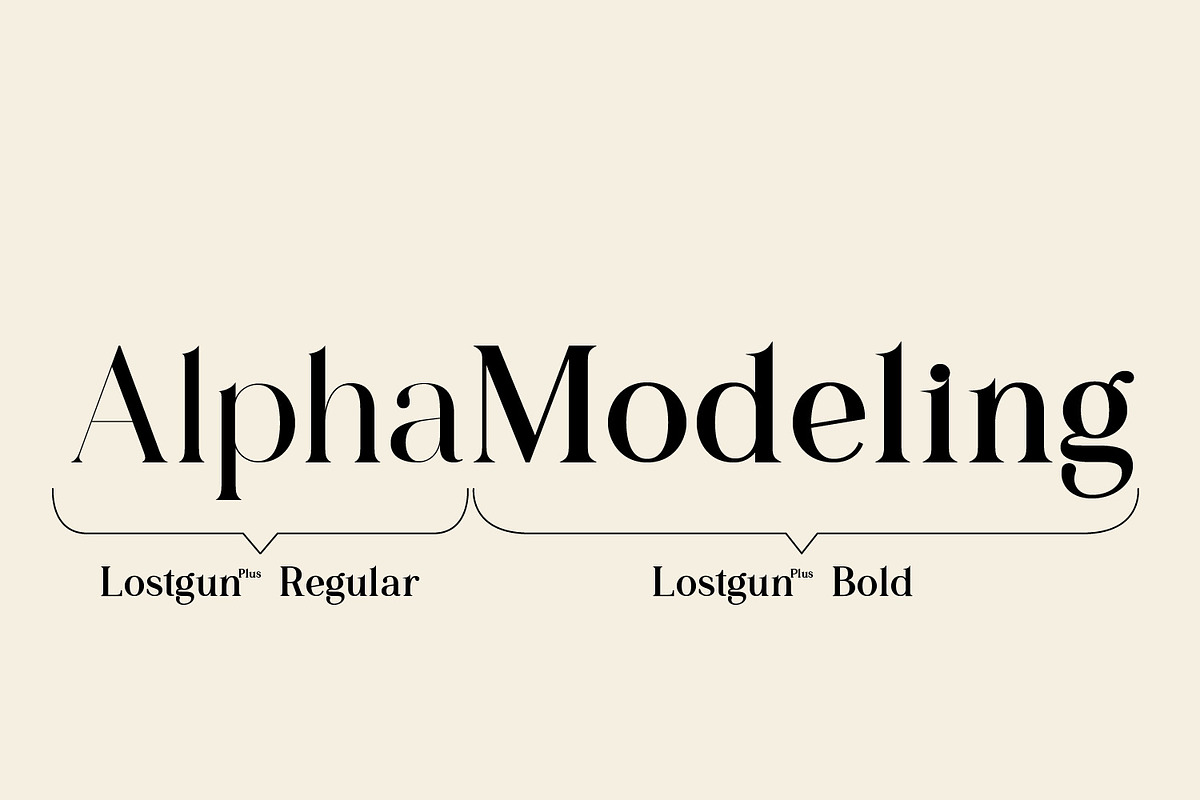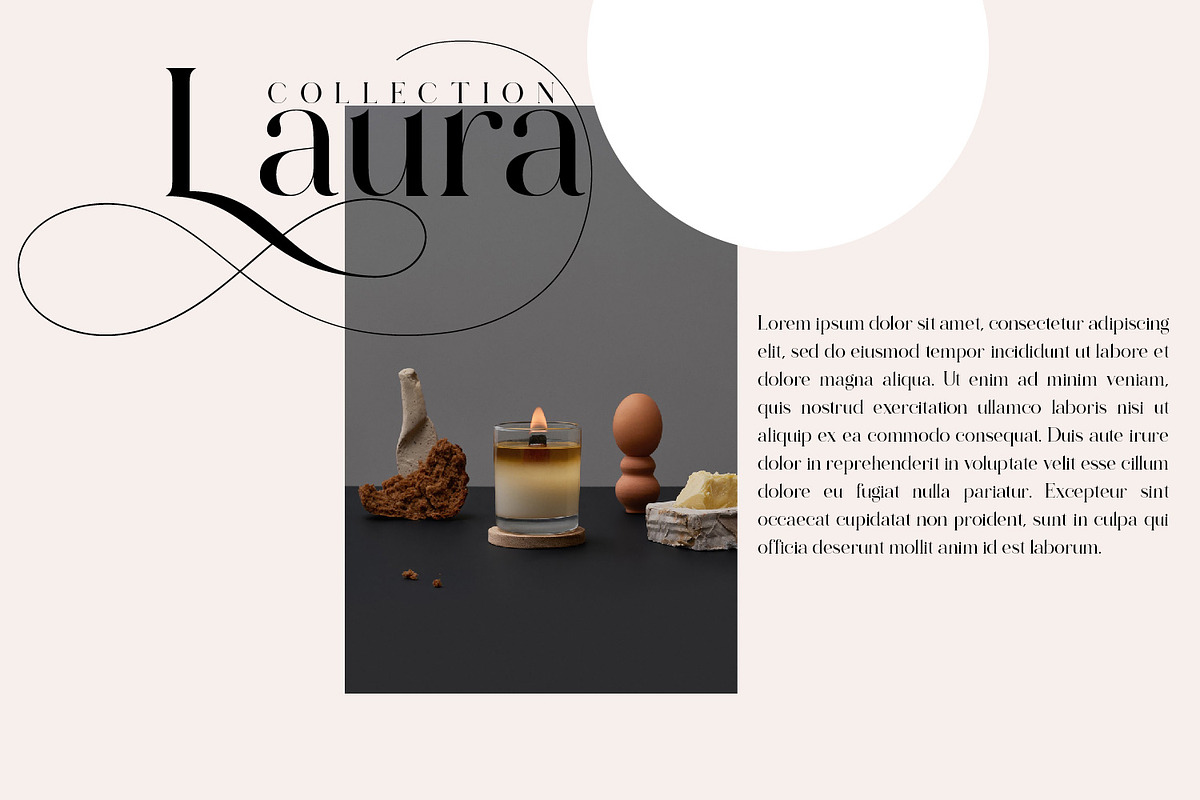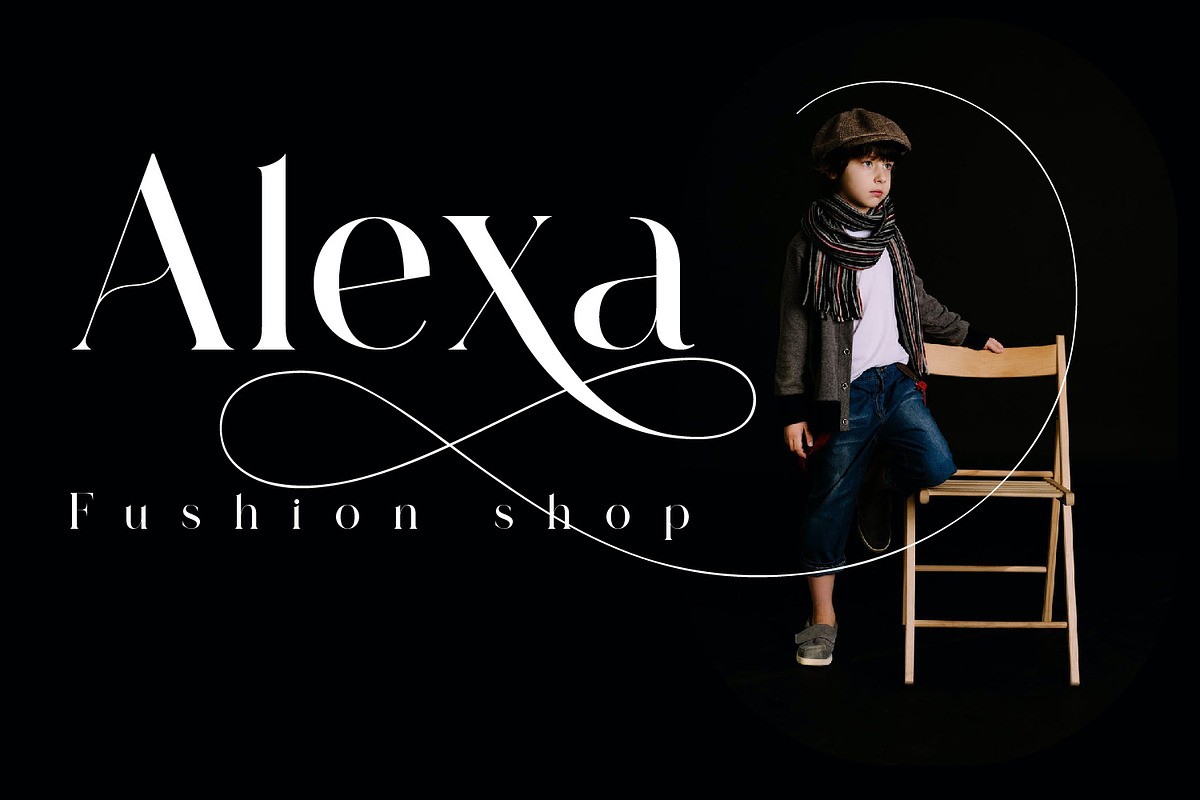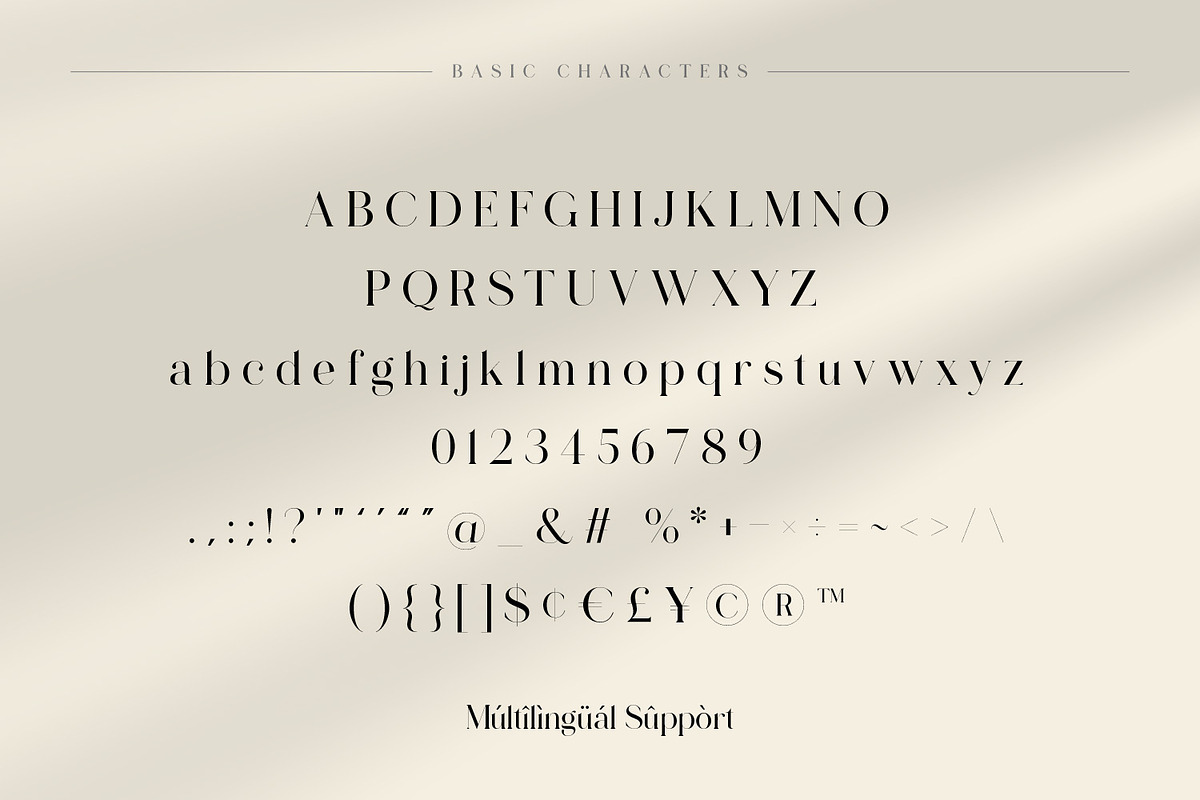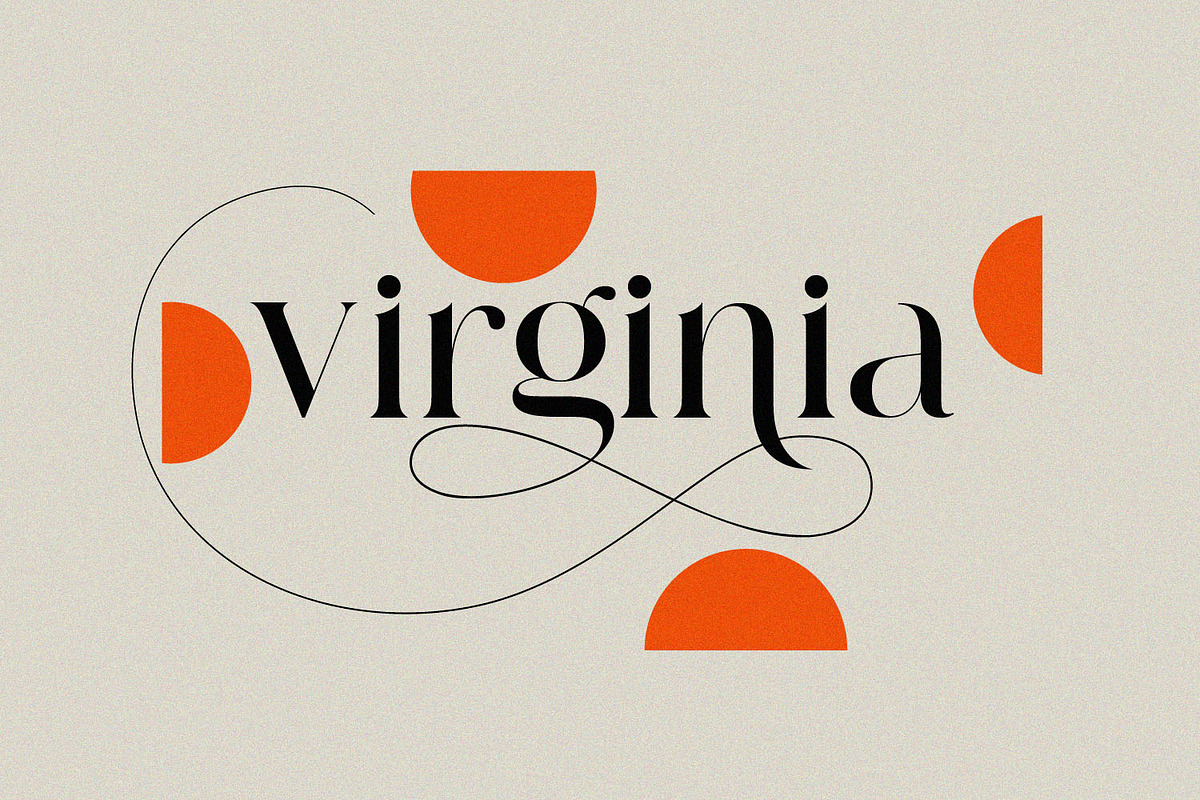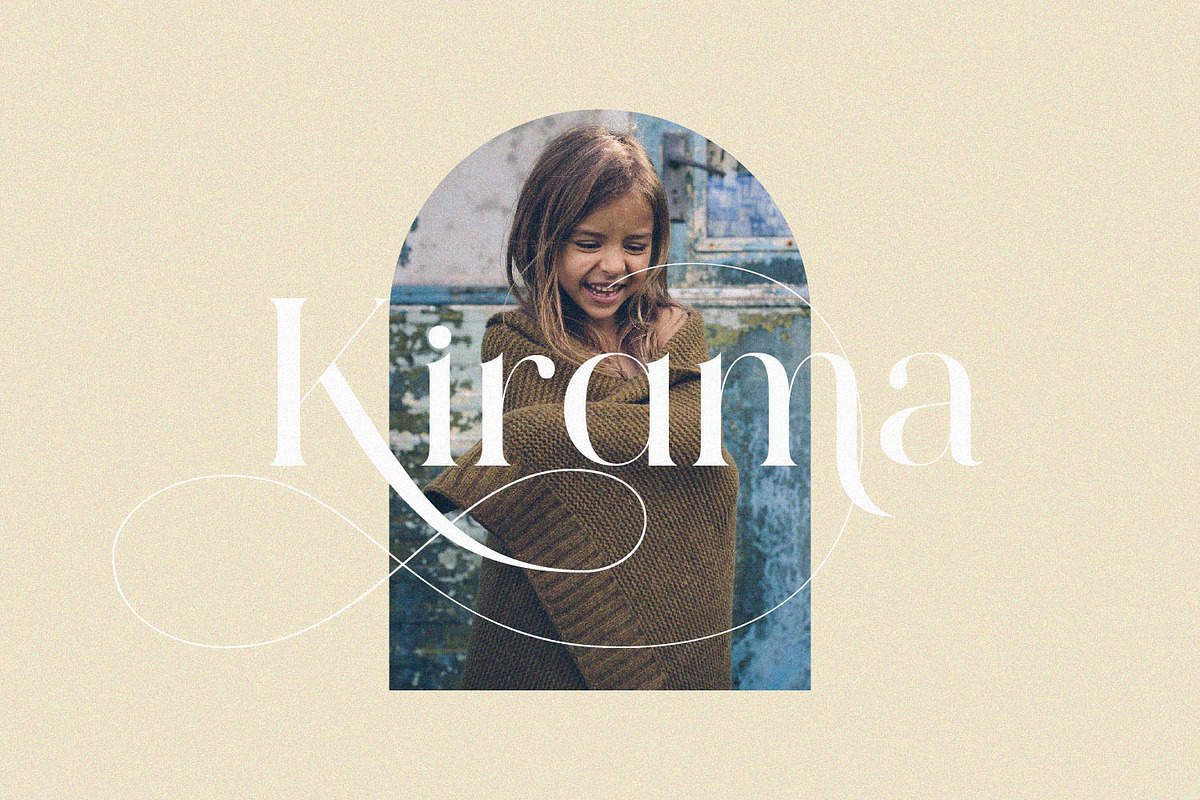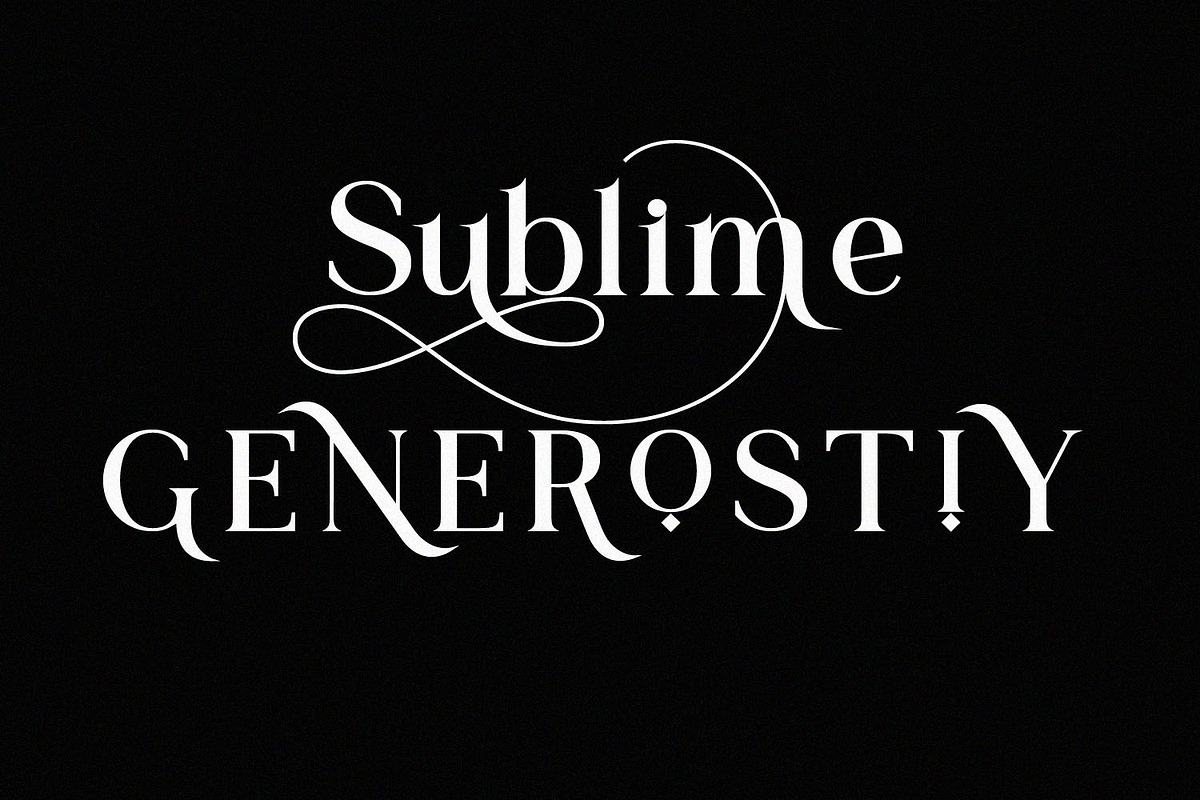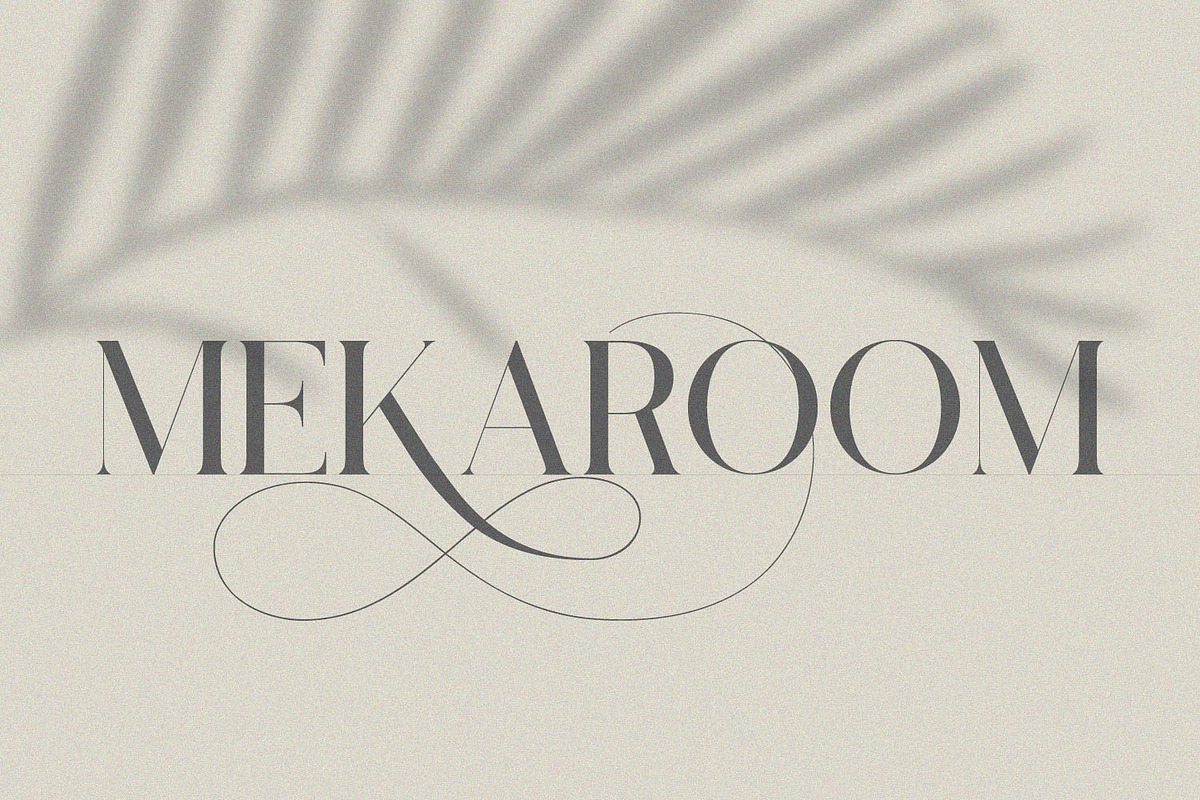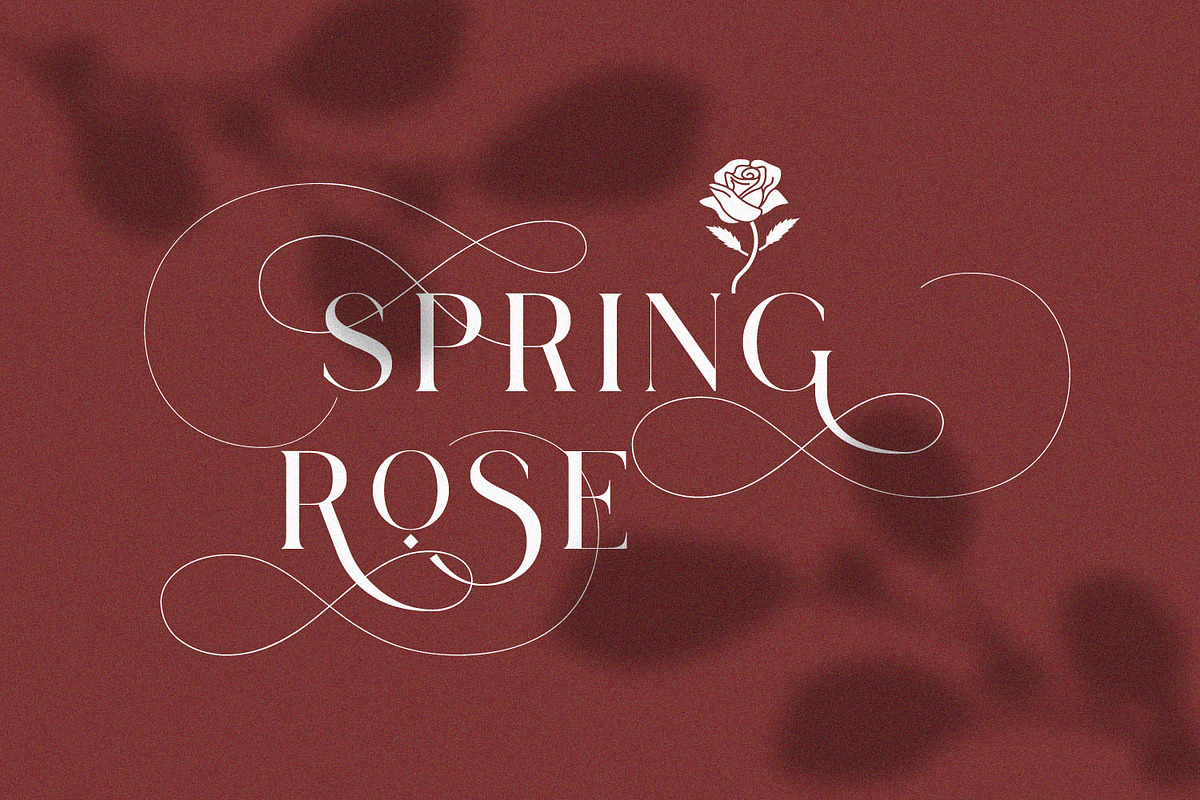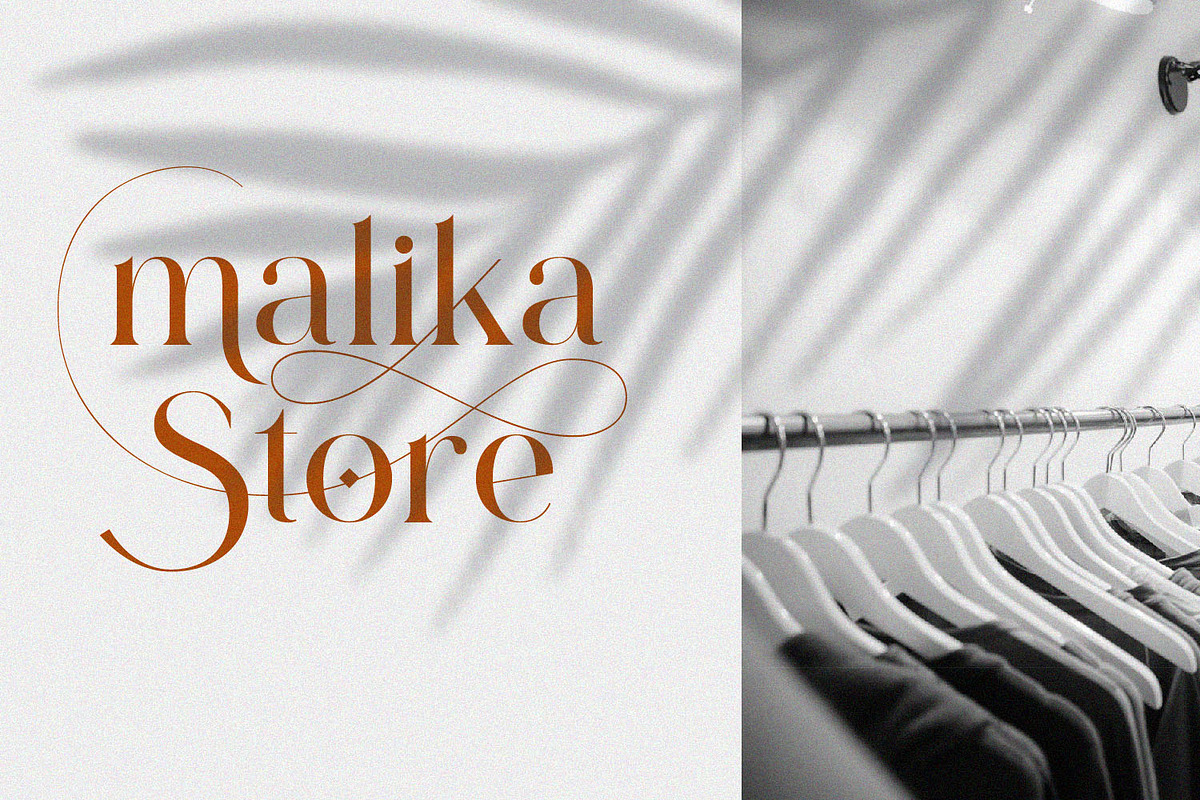
Lostgun Plus | Stylish Typeface
Lostgun Plus is a new version of Lostgun typeface, it is a Stunning, classy upper and lowercase typeface that looks incredible in both large and small settings. Best used as a display for headings and logos, Lostgun plus has clean lines and smooth curves that gives any project an extra touch of class.
what’s news:
New Stylish Alternate Characters.
No Ligature which give you more control on your typing.
Remove some unnecessary Alternates.
2 Styles: Regular and Bold.
Main Features:
Uppercase & Lowercase letters
Punctuation and special characters